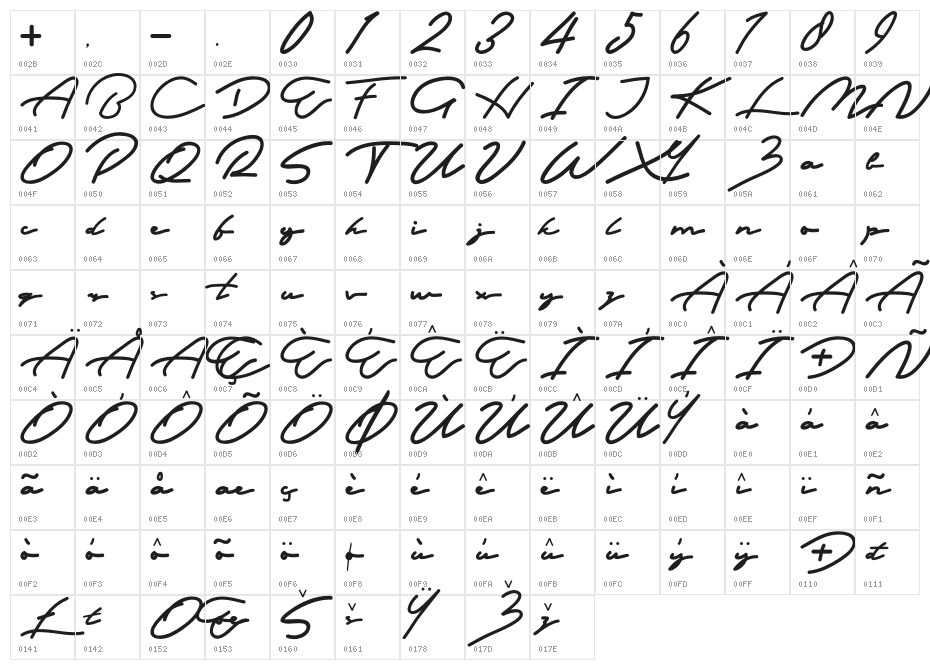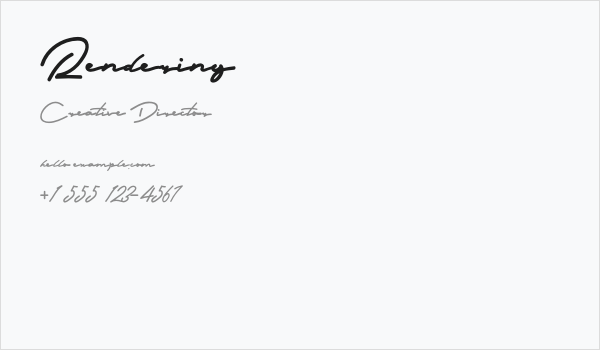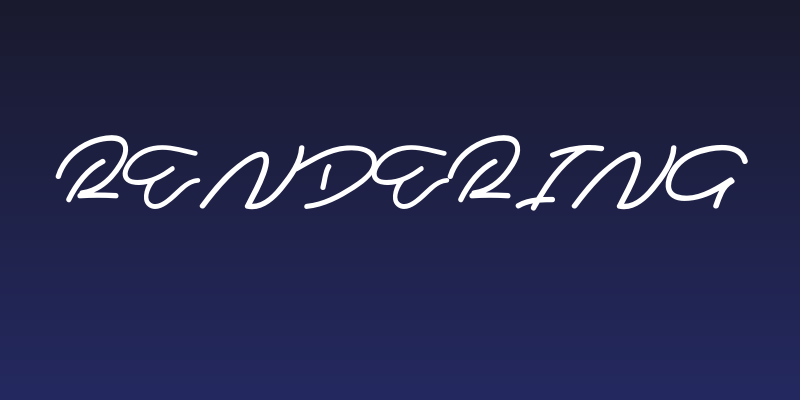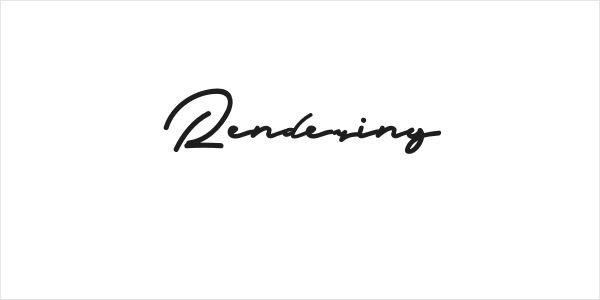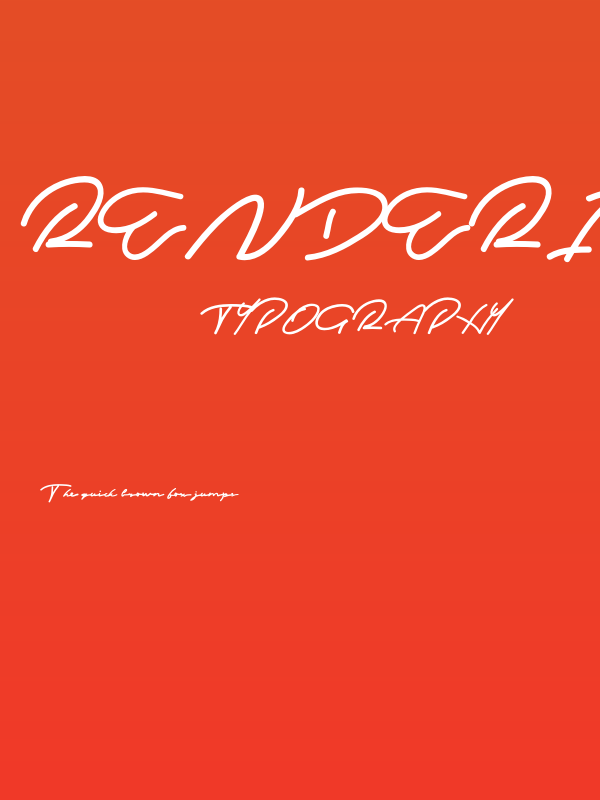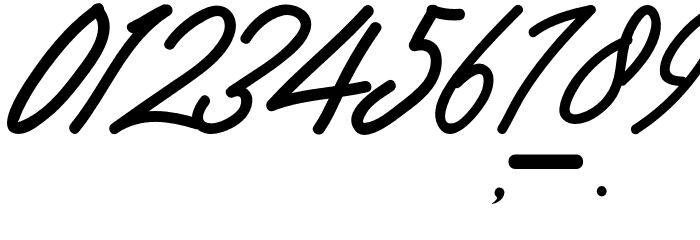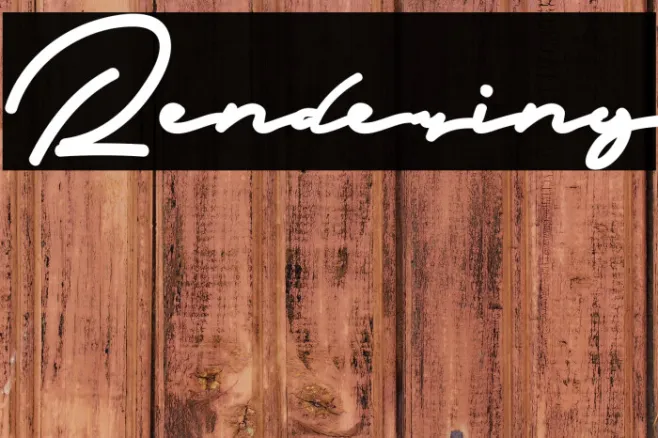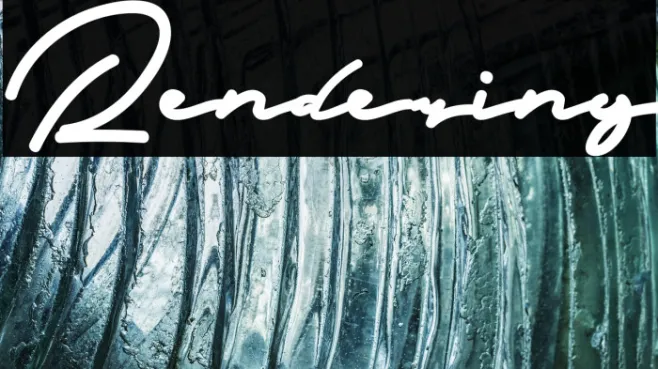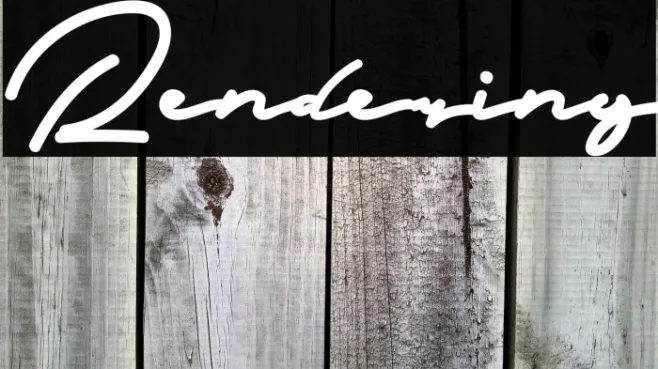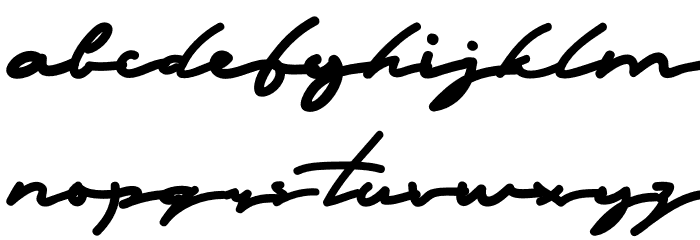
Rendering Font
Rendering Description
This font exhibits a flowing, cursive style that mimics elegant handwriting. The characters are interconnected, creating a seamless and fluid appearance. The uppercase letters are slightly more elaborate, with graceful loops and swirls, while the lowercase letters maintain a consistent, smooth line. The numerals and special characters follow the same cursive style, ensuring uniformity across all glyphs. The font's overall aesthetic is sophisticated and artistic, making it ideal for projects that require a personal or creative touch. Its legibility is maintained despite the decorative nature, thanks to the balanced spacing and consistent stroke width.
| Proposed Projects | Ideal for wedding invitations, greeting cards, personal branding, and artistic projects. |